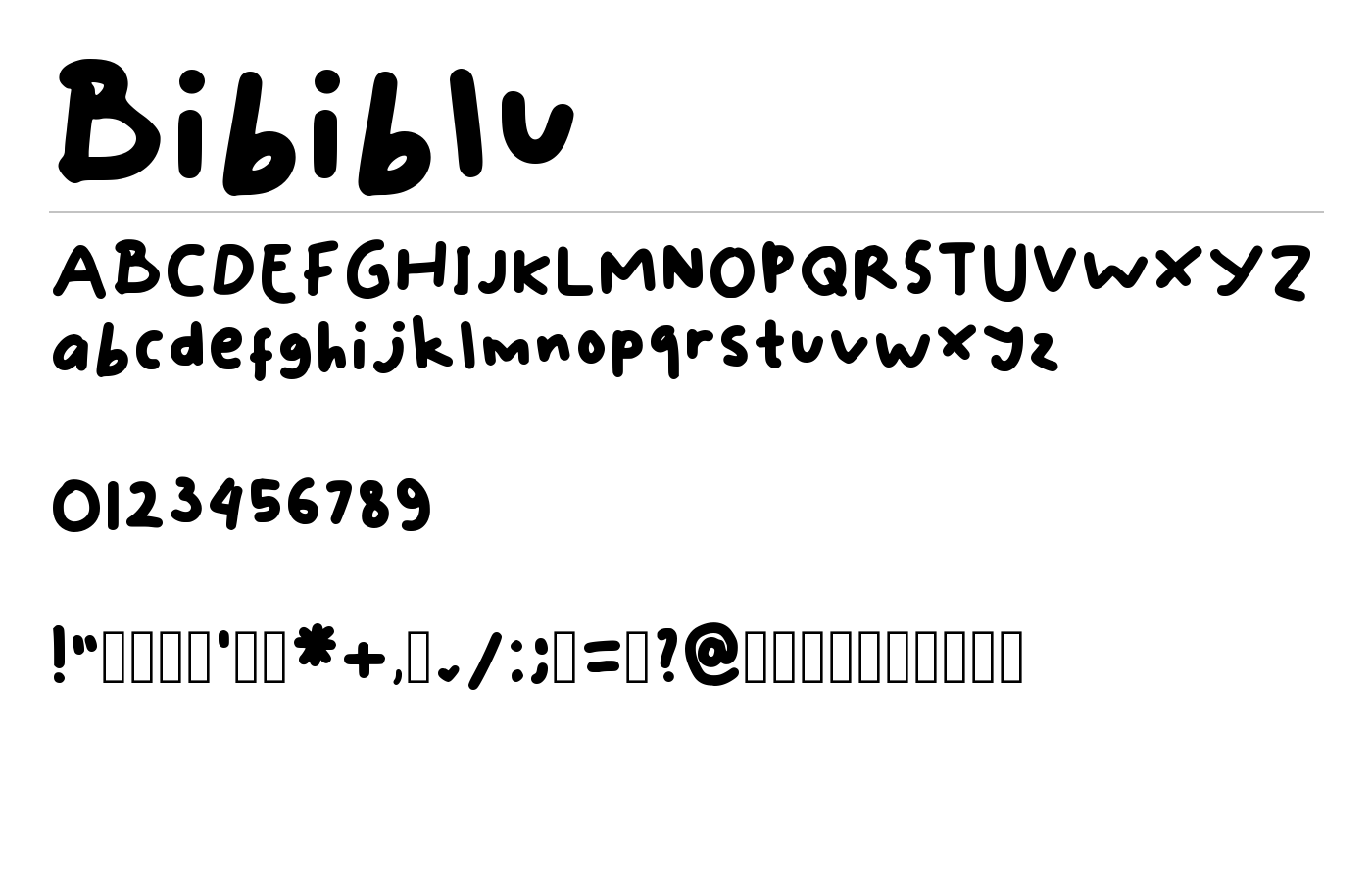
Bibiblu is a playful, informal sans serif font with a hand-drawn feel, featuring rounded, uneven strokes that give it a friendly and approachable personality. Its irregular shapes and quirky letterforms make it ideal for casual, fun designs like children's books, informal branding, and creative projects where a lighthearted tone is desired. This font works well for headlines and display text, adding charm and warmth to any design.
Bibiblu Font
About Bibiblu Font